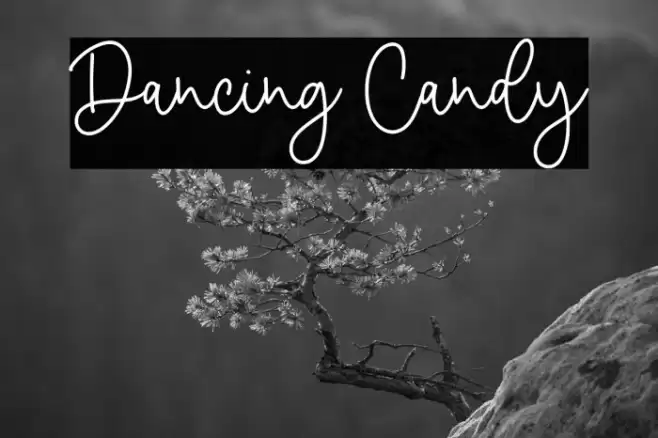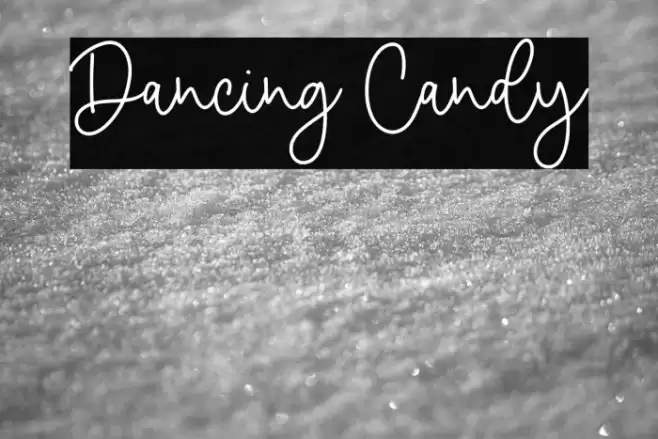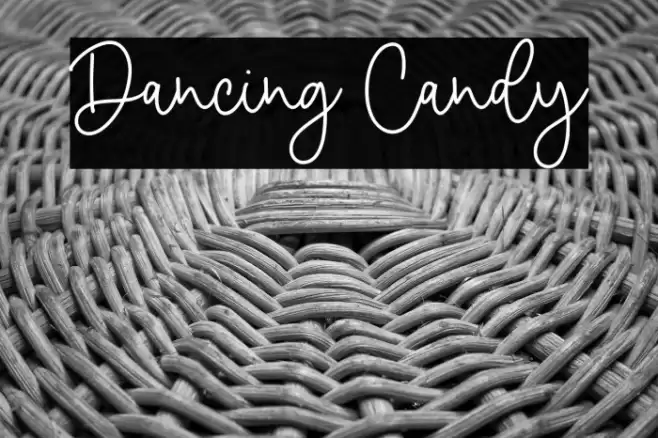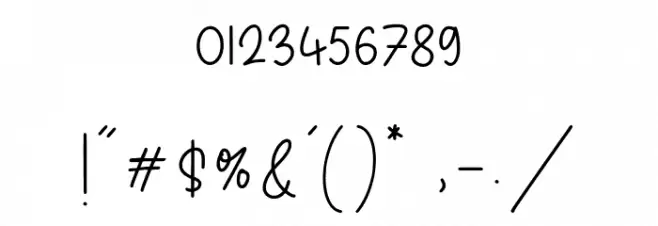
Dancing Candy Font
Dancing Candy Description
This font features a playful and whimsical script style, characterized by its flowing, cursive letters that mimic a handwritten appearance. The uppercase letters are tall and slightly slanted, with a consistent stroke width that adds to its casual elegance. The lowercase letters are more compact, maintaining the same fluidity and connectedness, which enhances the overall cohesive look. The numerals are clear and legible, maintaining the same playful style. Special characters are included, matching the font's lively and dynamic aesthetic. This font is perfect for projects that require a personal touch, such as invitations, greeting cards, or branding materials that aim to convey friendliness and approachability.
A playful, handwritten script font with a whimsical and flowing style from Uncategorized fonts.
- Proposed Projects: Ideal for invitations, greeting cards, personal branding, and playful design projects.
- Use Case: Logos, Headlines, Invitations